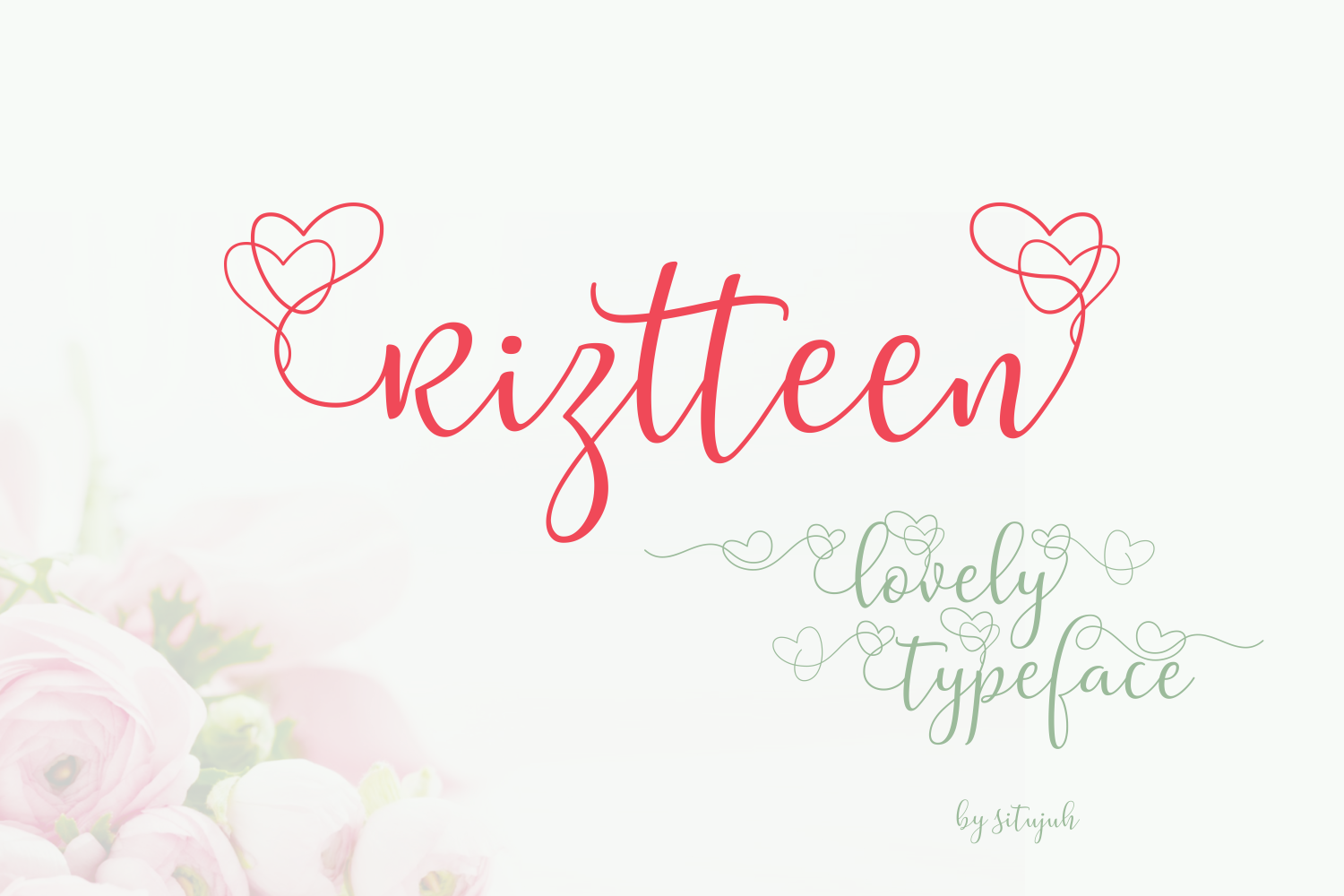
Riztteen Font
About Riztteen Font
Rizzteen is a lovely, elegant font with more than 540 unique glyphs.
Every letter is thin, which give the font a classy look. Making it the perfect font for wedding invites and personal businesses. It’s packed with lot’s of initial and terminal swashes. Make sure to check the specimen to see Rizzteen in it’s full potential.